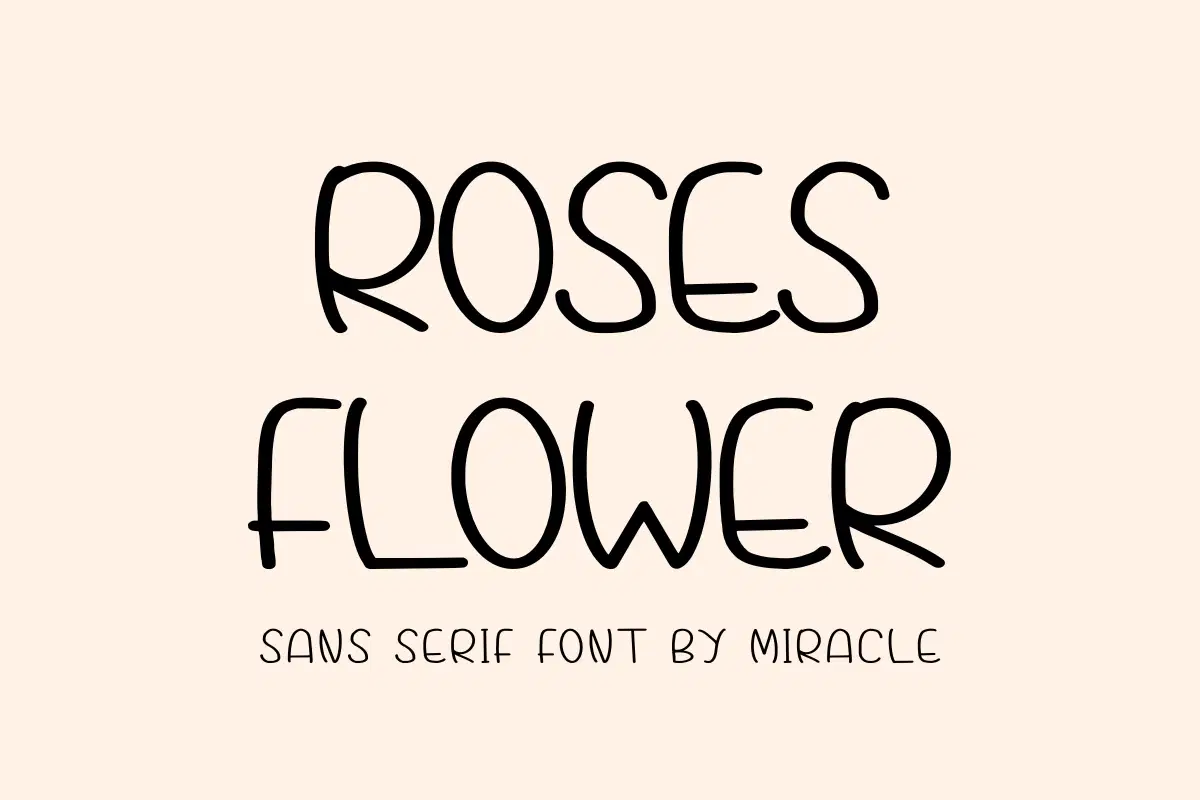
Discover the beauty of simplicity with Roses Flower, a refined sans serif font by Miracle. Crafted with a slender and elegant hand-drawn aesthetic, this font captures a timeless look that is both modern and romantic. Its clean lines and natural flow make it the perfect choice for projects that require an understated yet sophisticated touch.
Roses Flower is designed for high legibility and versatility, blending seamlessly into minimalist and chic design layouts. Whether you are designing for a luxury boutique or a personal lifestyle brand, this font brings a breath of fresh air and a touch of floral-inspired grace to your text.